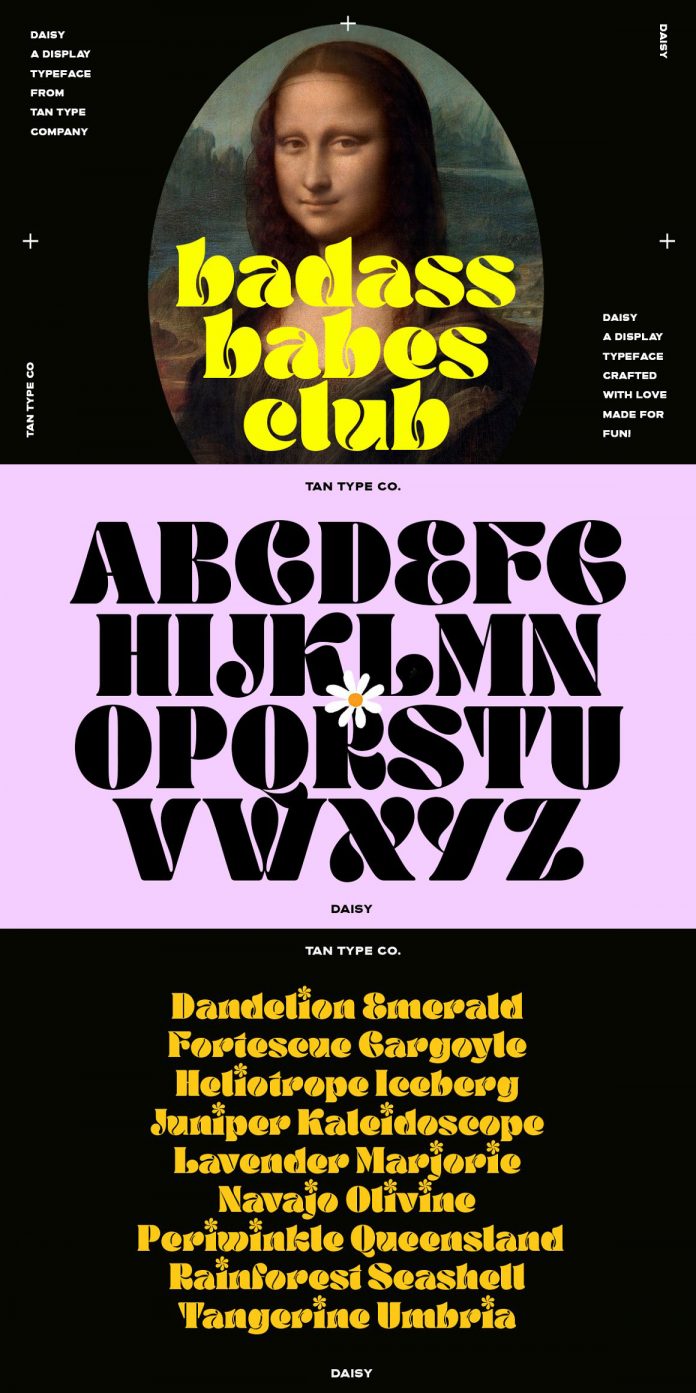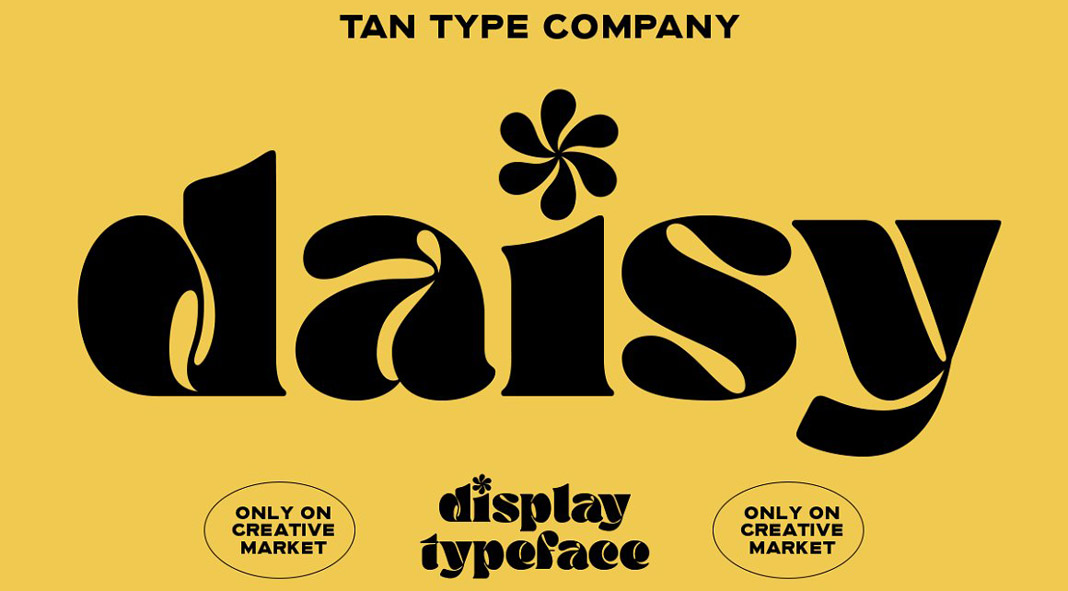
TAN DAISY, a display typeface full of retro power.
TAN DAISY is another elegant yet fun display font from foundry TanType. Its bold and thick letters offer a quirky, groovy, and funky style. The TAN DAISY font is a great choice for branding, packaging, web design, social media, clothing, just to name a few. Just click on the following link to learn more about this exceptional typeface.